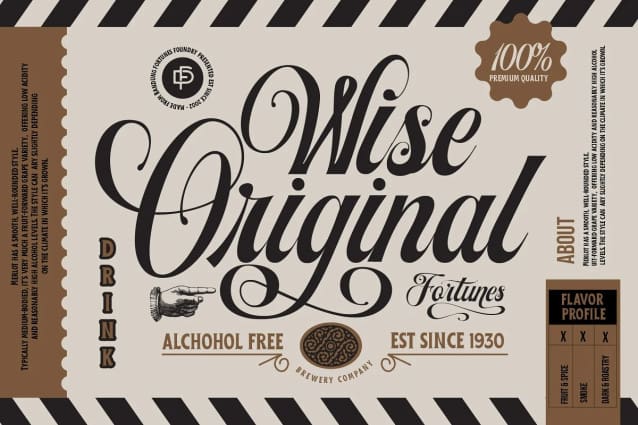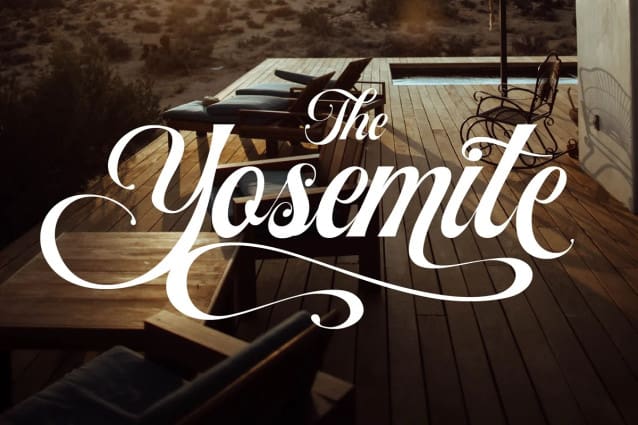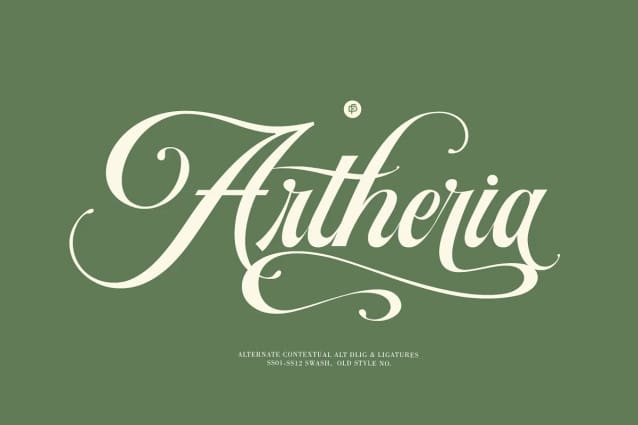
Artheria Font
Artheria Font by Fortunes Co 17,038 downloads
Artheria Font
Artheria Font is a script font with a classic vintage style. The classic style of this font is suitable for Classic /vintage themed designs but can also be used for designs with other styles. This font is equipped with 130+ stylistic sets, Ligatures, and multi-language support.
This font is perfect for your creative projects such as Logotype, printed quotes, invitations, cards, product packaging, headers, Letterhead, Apparel, Web design, Magazine, Book, etc.